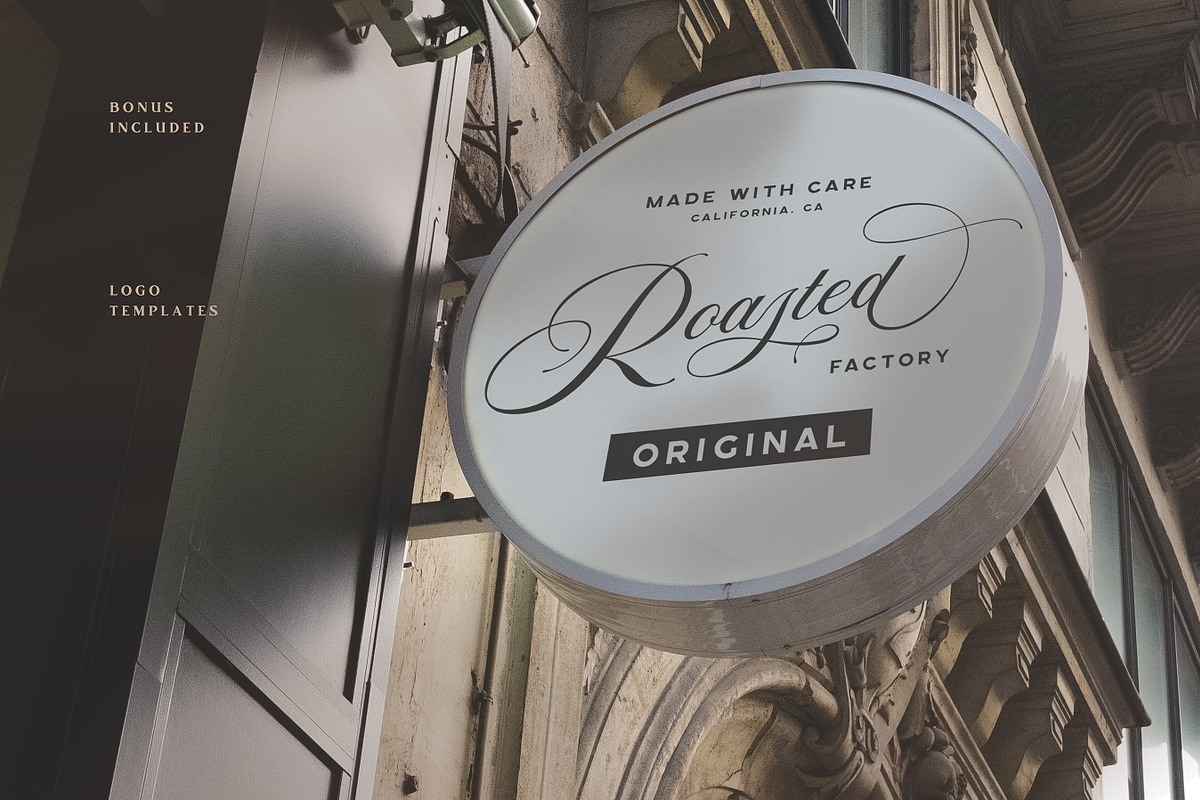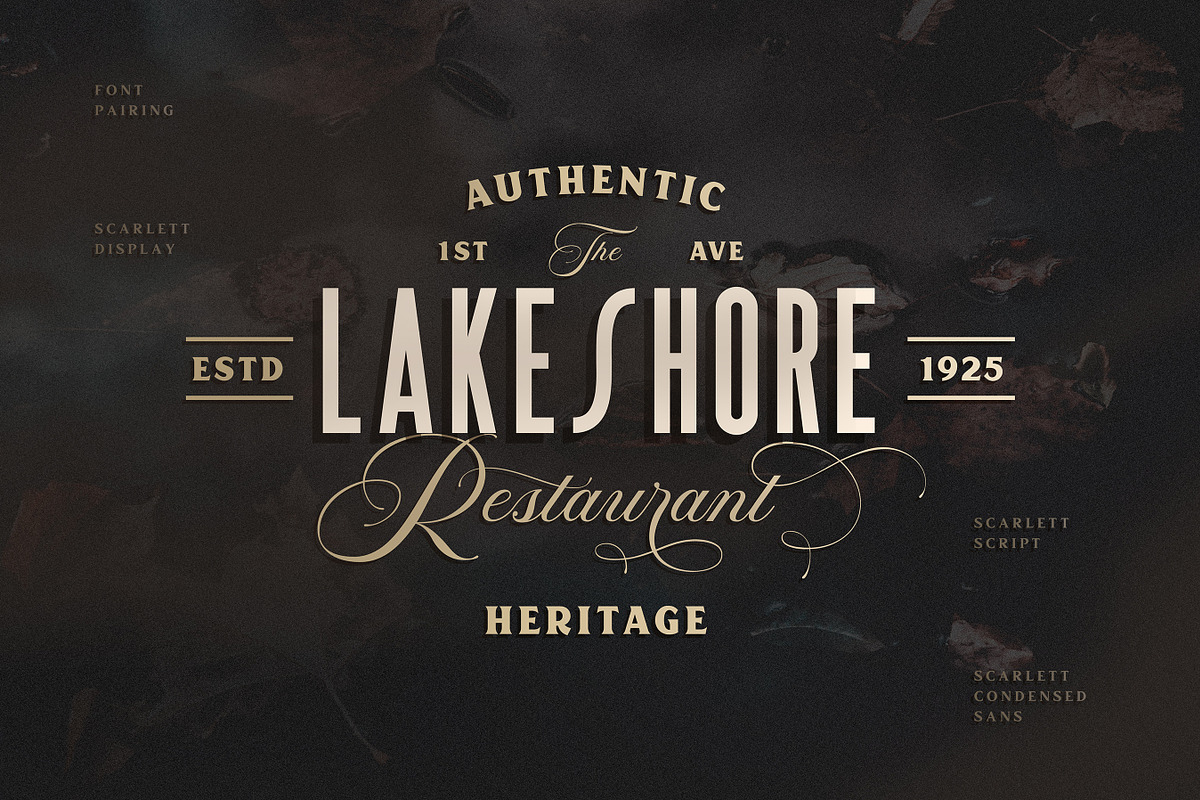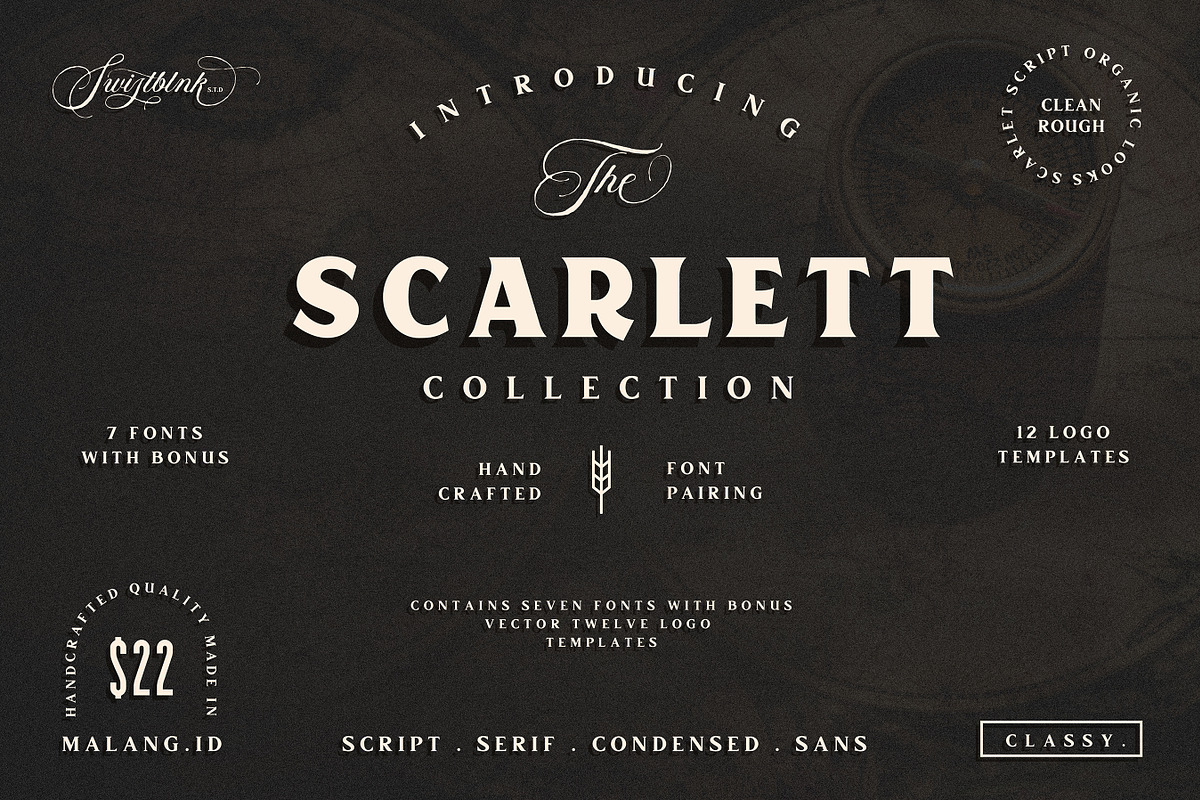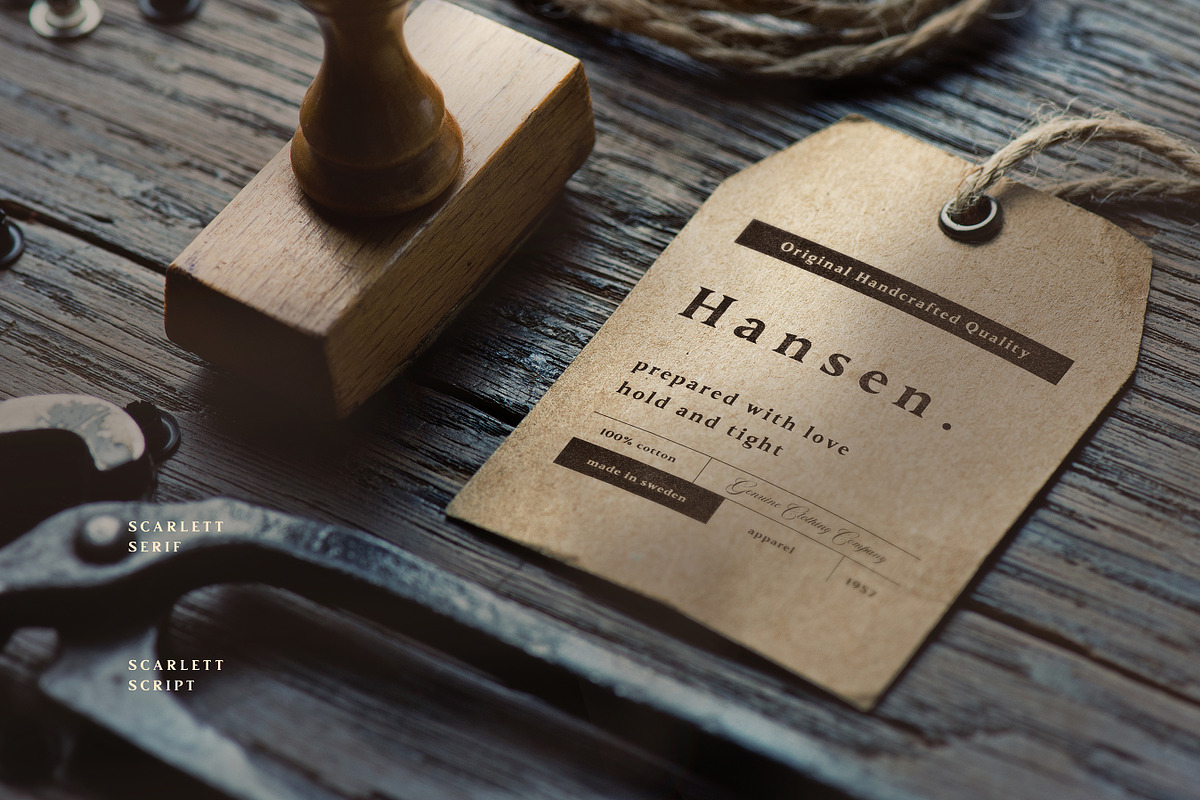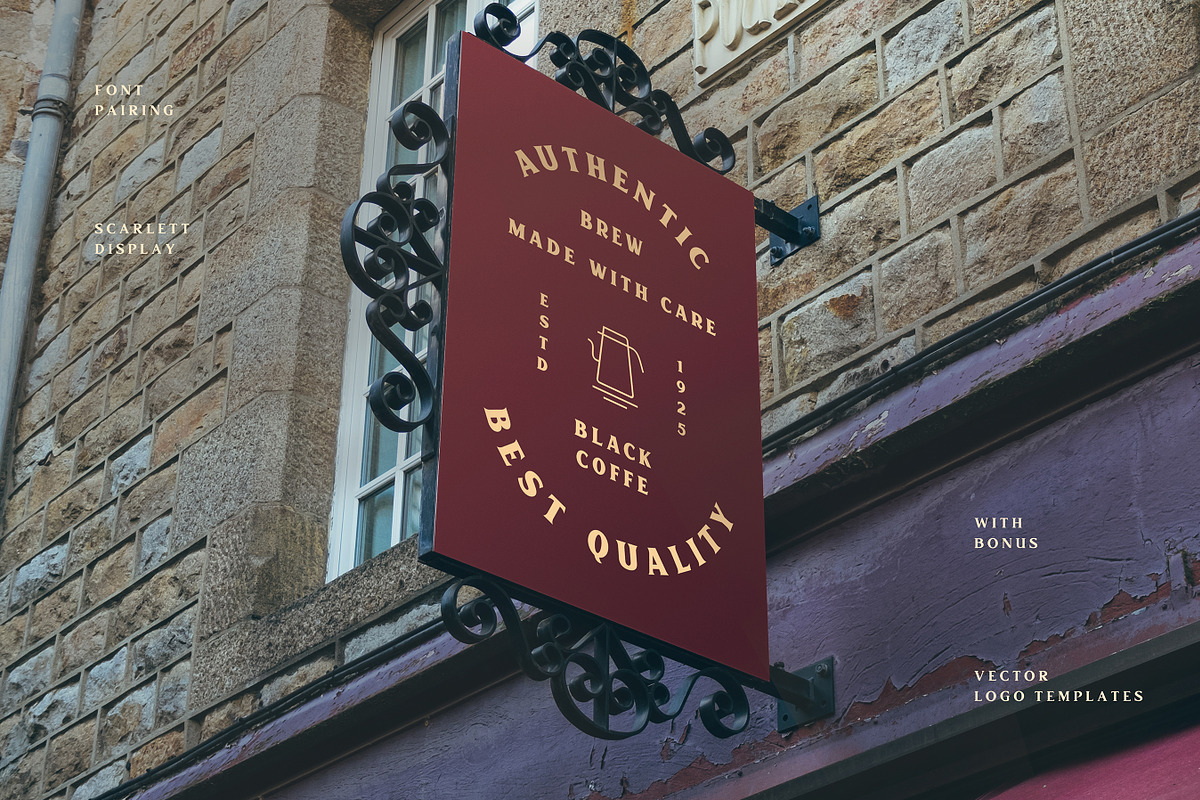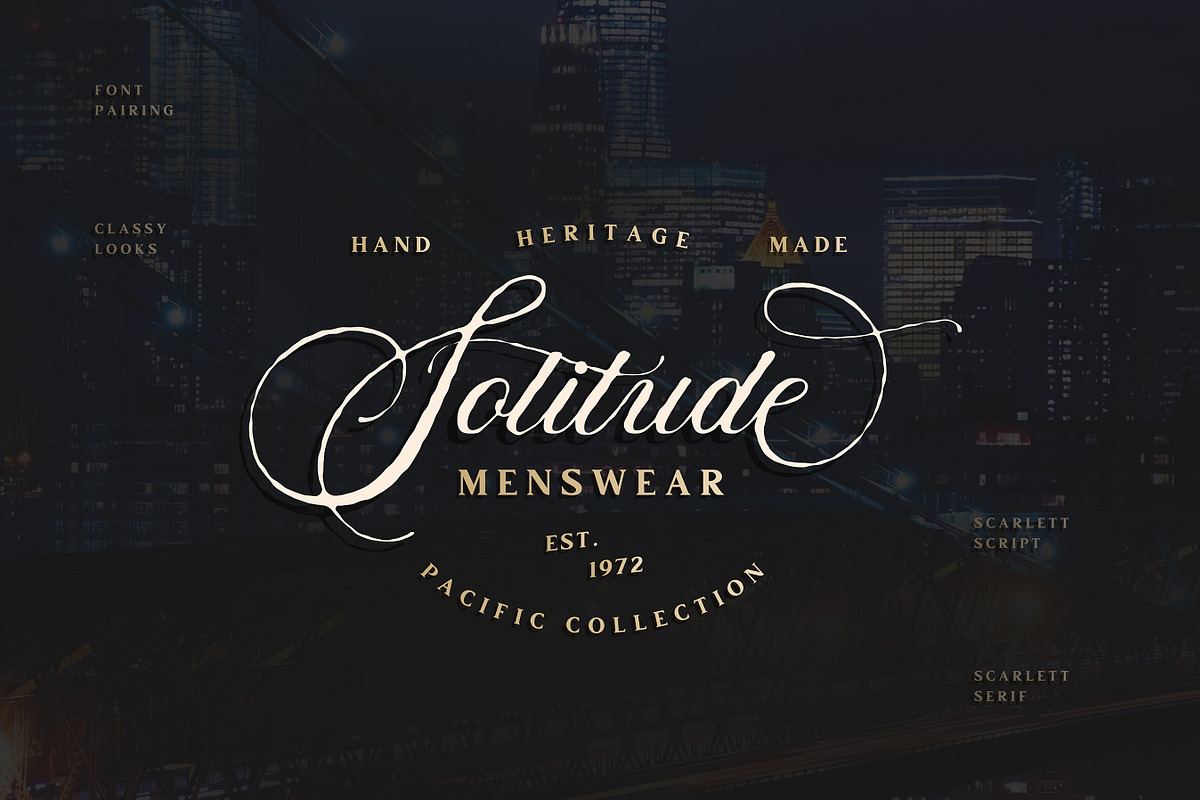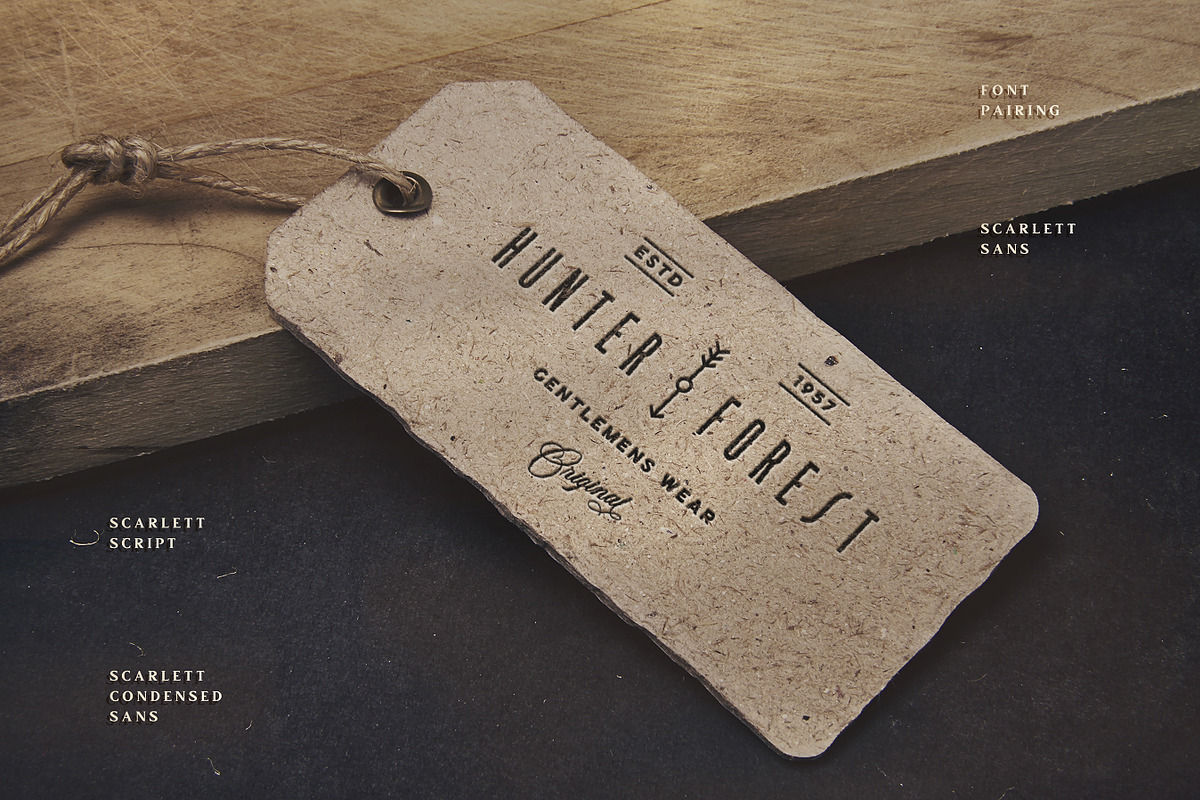
Scarlett Font Bundle
Scarlett Font Bundle !!by Swistblnk Std
This Font Collection contains 7 Fonts named Scarlett Family with bonus vector Logo Templates. this collection perfectly paired for logo, label , packaging or headlines with modern classy looks.
Lowercase ( except Scarlett Sans )
Accents ( Multilingual Characters )
Stylistic Set 01-06 for Scarlett Script
Suitable for Headlines, Logotypes, Signs, Label, Posters, Letterhead, T-Shirt and many more.
- Scarlett Script
- Scarlett Script Vintage
- Scarlett Sans
- Scarlett Serif
- Scarlett Display
- Scarlett Condensed Sans
- Scarlett Condensed Sans Bold
- 12 Editable Logo Templates